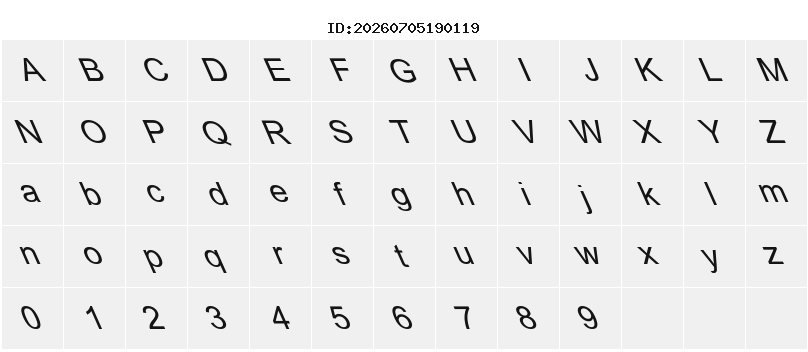
Dixon Extreme Lefty Preview
About Dixon Extreme Lefty.ttf
Dixon Extreme Lefty.ttf is a modern, elegant sans-serif font designed for ultimate readability and visual harmony. Perfect for branding, headlines, web design, and print materials.